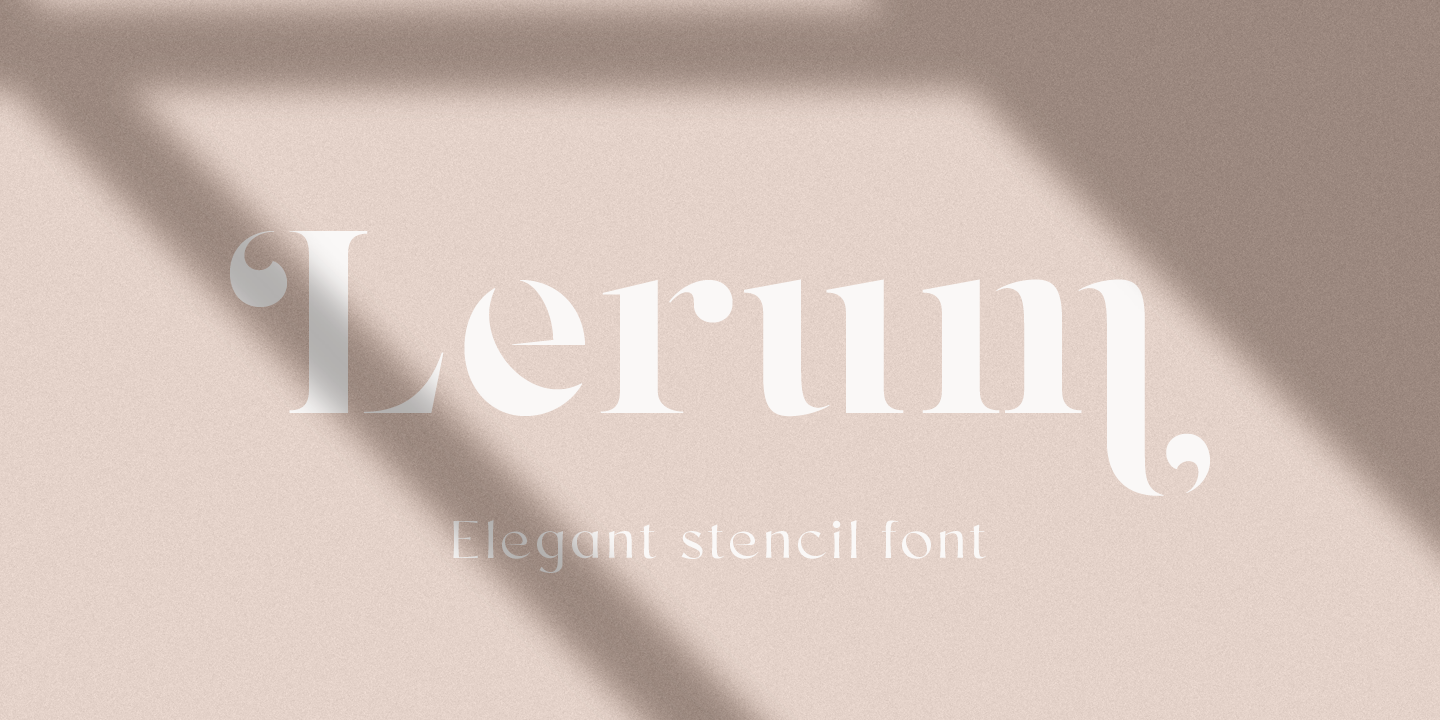
Lerum Font is perfect for Scandinavian branding, Nordic design materials, minimalist signage, clean corporate communications, contemporary architectural projects, modern lifestyle campaigns, refined publications, and elegant Nordic typography.
What makes Lerum Font exciting is its Nordic minimalist character that embodies Scandinavian design and clean sophistication through streamlined letterforms and Nordic appeal. This refined typeface features Scandinavian construction, minimalist details, and contemporary personality that captures the essence of Nordic design principles and modern simplicity, making it ideal for projects seeking to communicate clean elegance, Nordic authenticity, and contemporary sophistication with genuine Scandinavian appeal and minimalist refinement.
The Lerum Font family includes Thin, Light, Regular, Medium, and Bold weights, each maintaining the characteristic Nordic elegance and minimalist appeal that define this distinctive typeface's Scandinavian personality and contemporary sophistication.
Lerum Font Free Download provides access to a typeface that perfectly captures the essence of Nordic design and Scandinavian minimalism. This clean font brings authentic Nordic aesthetics to contemporary projects, making it essential for Scandinavian brands, minimalist companies, and Nordic organizations targeting audiences who appreciate clean design and Scandinavian sophistication. The font's Nordic construction and minimalist details ensure immediate recognition of elegance and simplicity while its distinctive character creates peaceful connections among individuals seeking Nordic experiences and minimalist lifestyle. Whether designing Scandinavian brand materials, Nordic lifestyle campaigns, or minimalist communications projects, this font delivers the Nordic authenticity and Scandinavian sophistication that design-conscious audiences expect. Its Nordic foundation and minimalist symbolism make it indispensable for projects celebrating Scandinavian culture, minimalist design, and the serene beauty of Nordic aesthetics, ensuring communications resonate with audiences who value the Nordic simplicity, Scandinavian elegance, and minimalist sophistication that define authentic Nordic experiences and Scandinavian design excellence across diverse Nordic and minimalist applications.